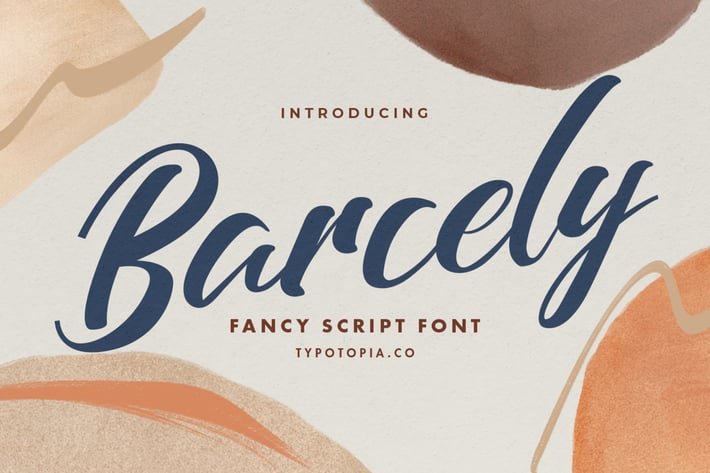
Barcely Beautiful Script Typeface
Introducing Barcely Beautiful Script Typeface. This perfect for the purposes of designing templates, brochures, videos, advertising branding, logos and more.